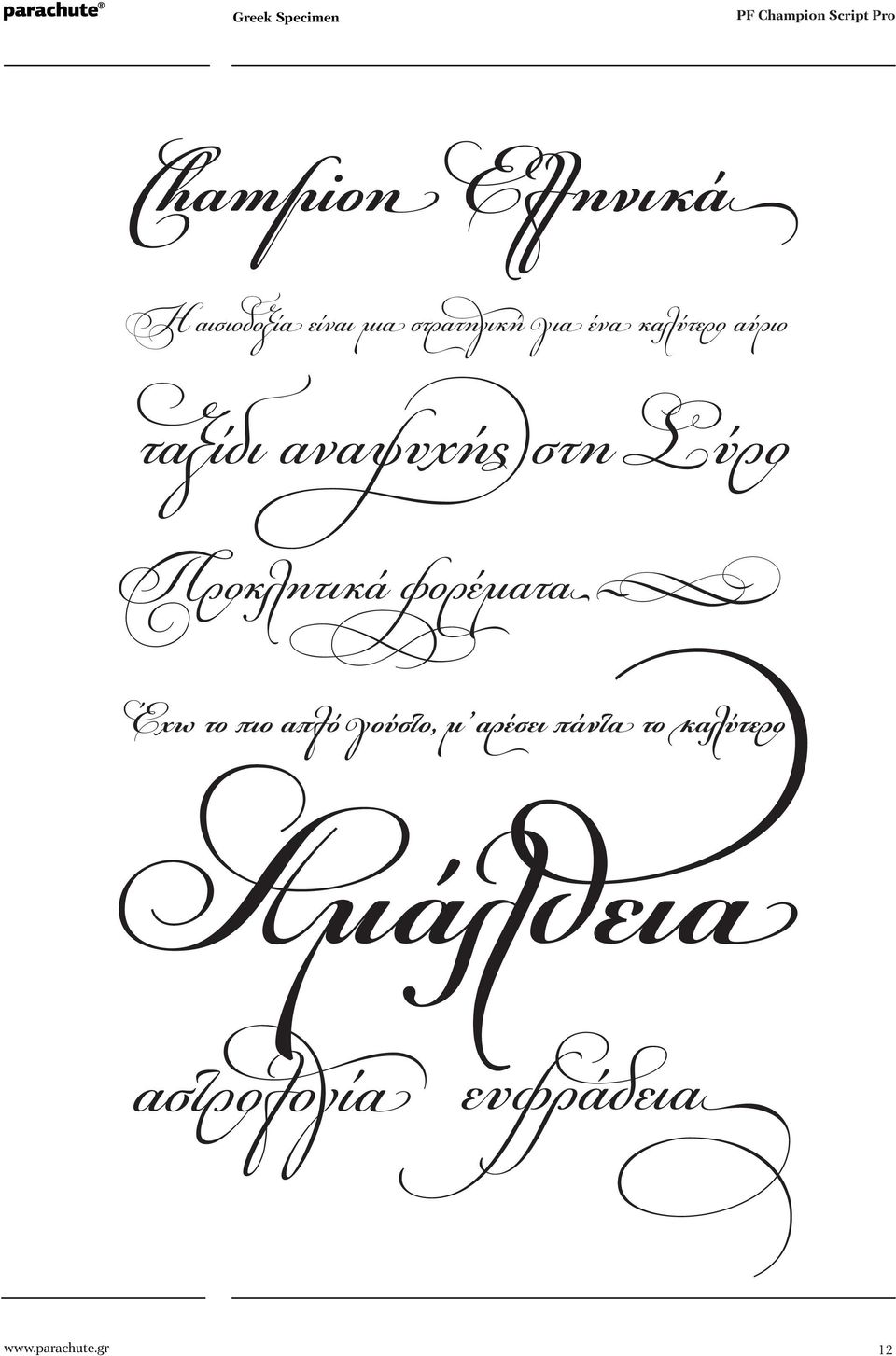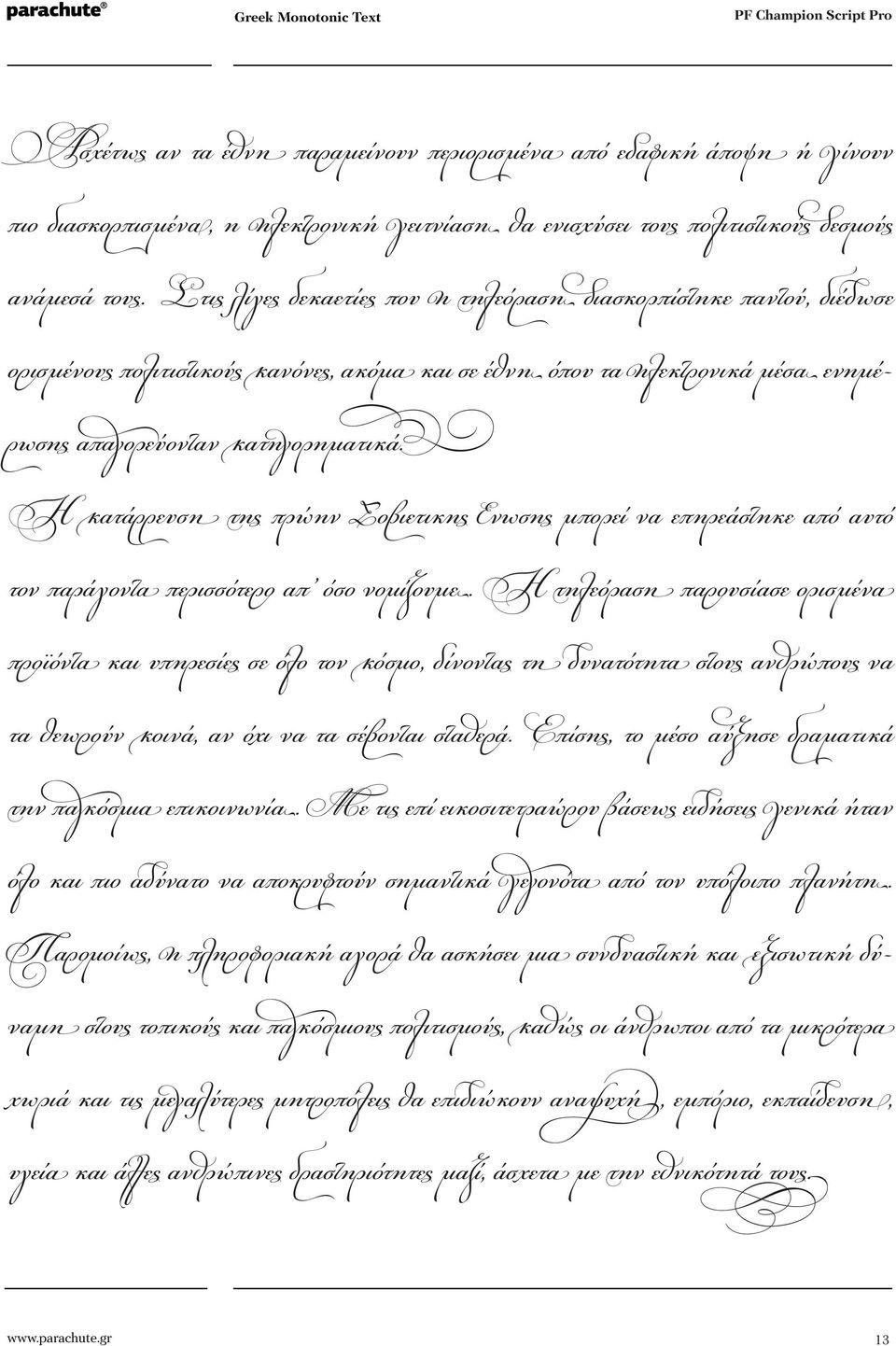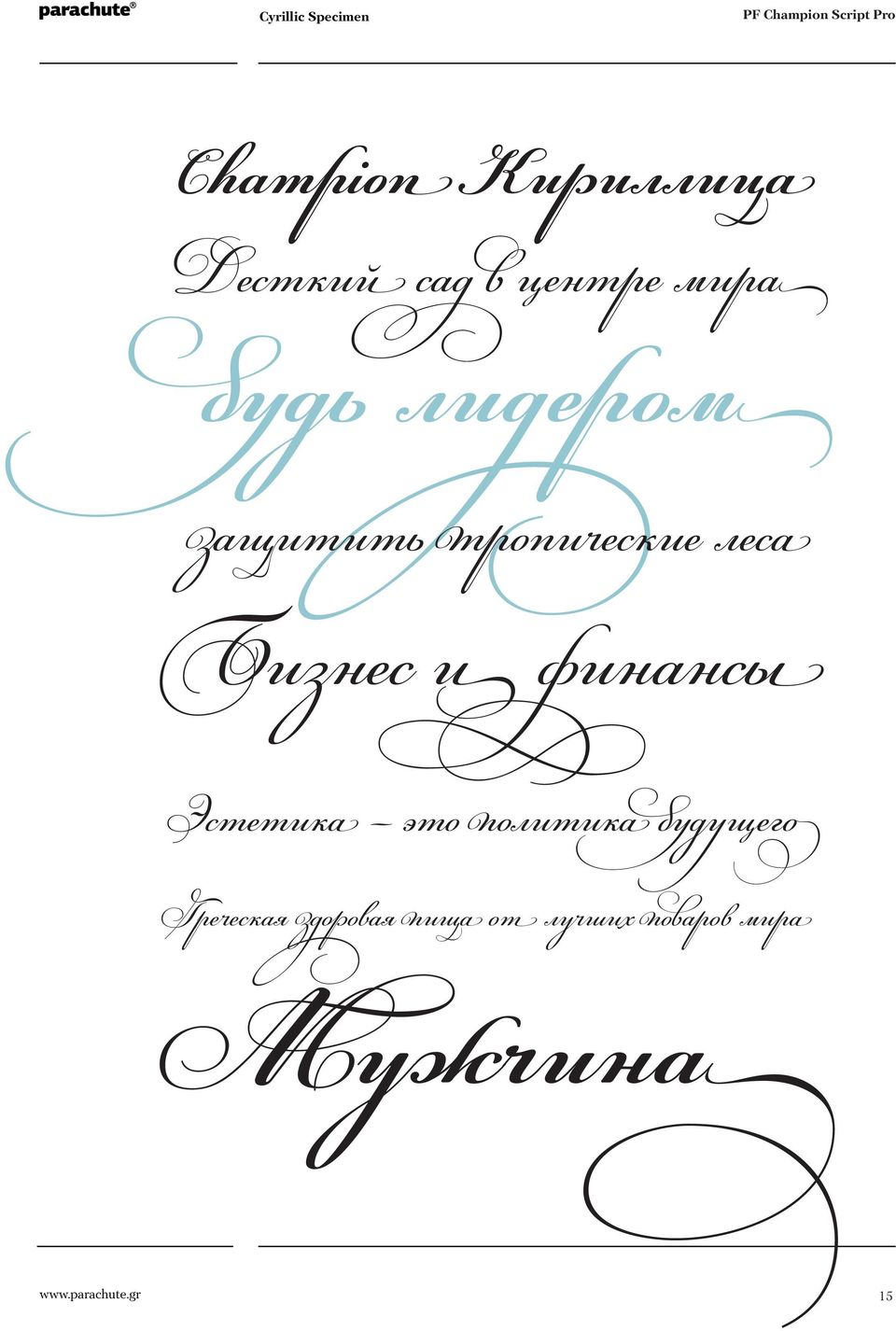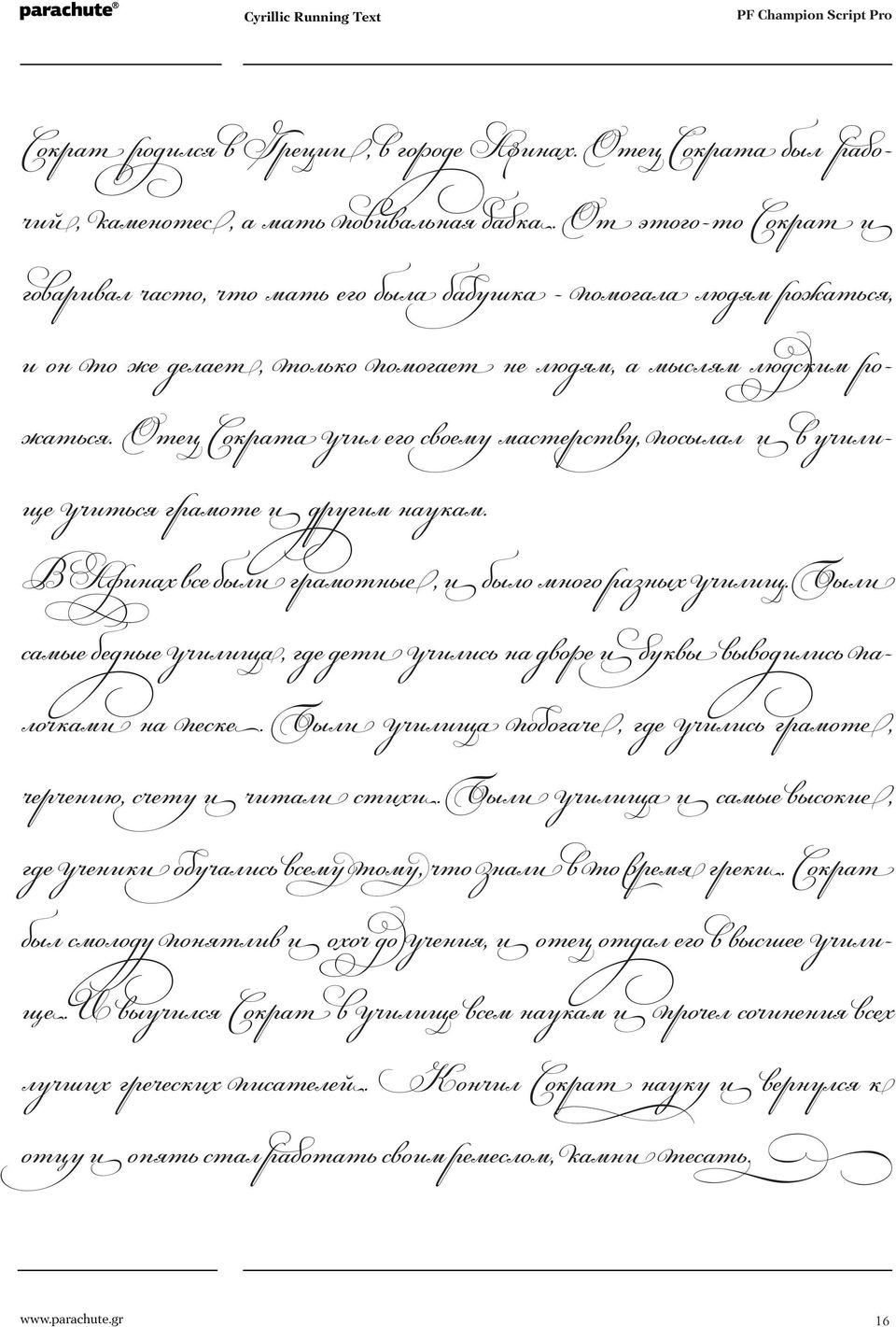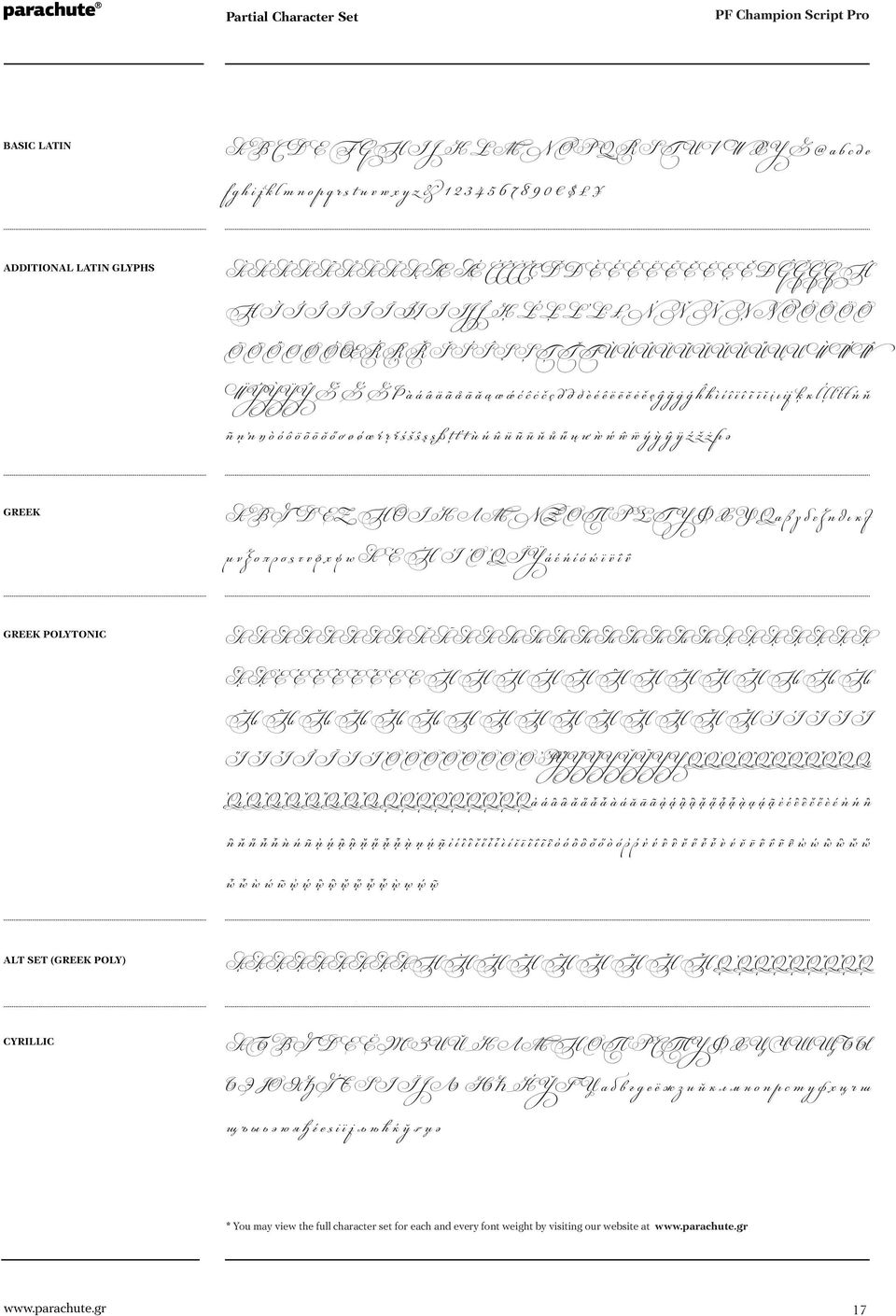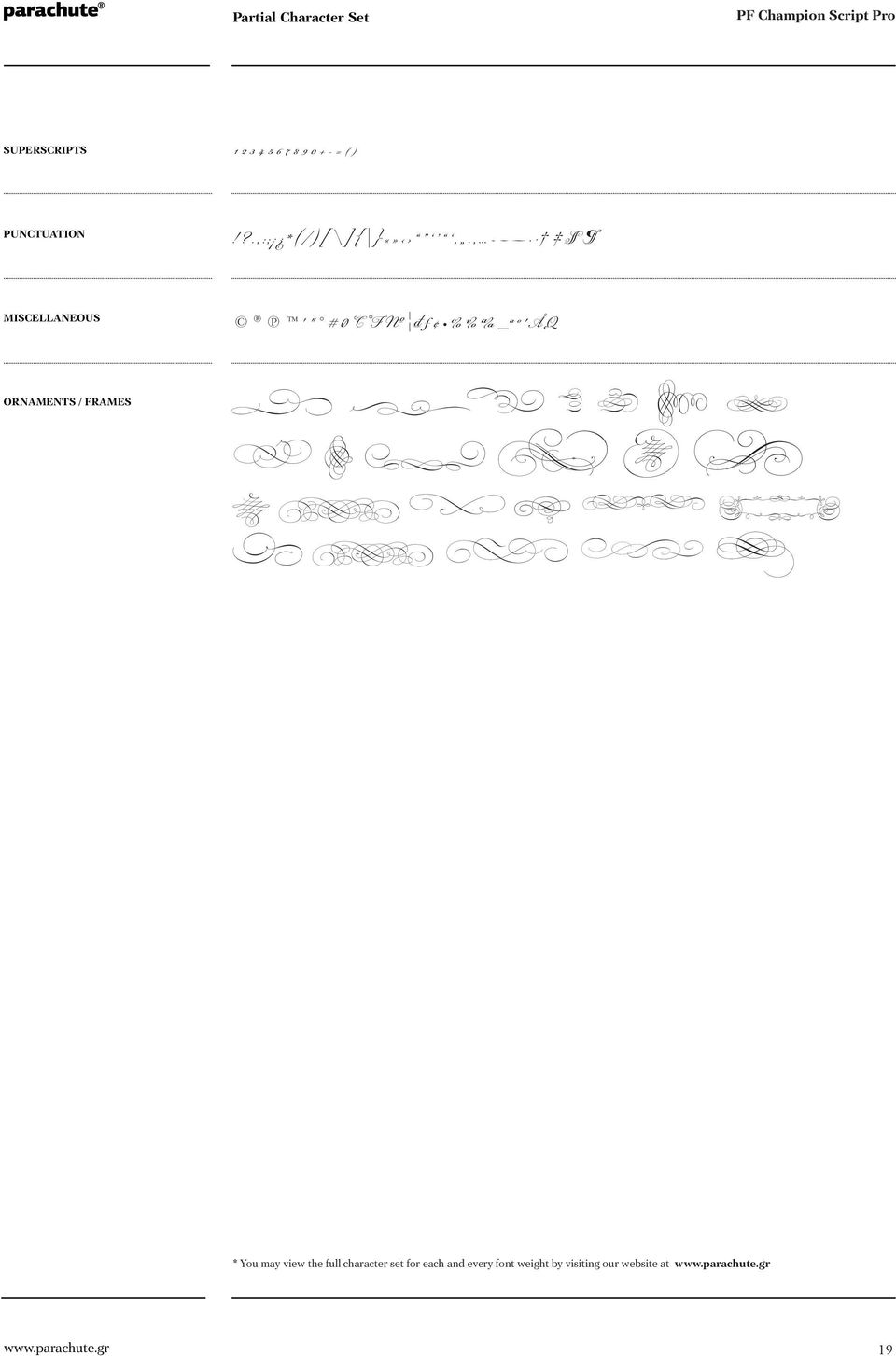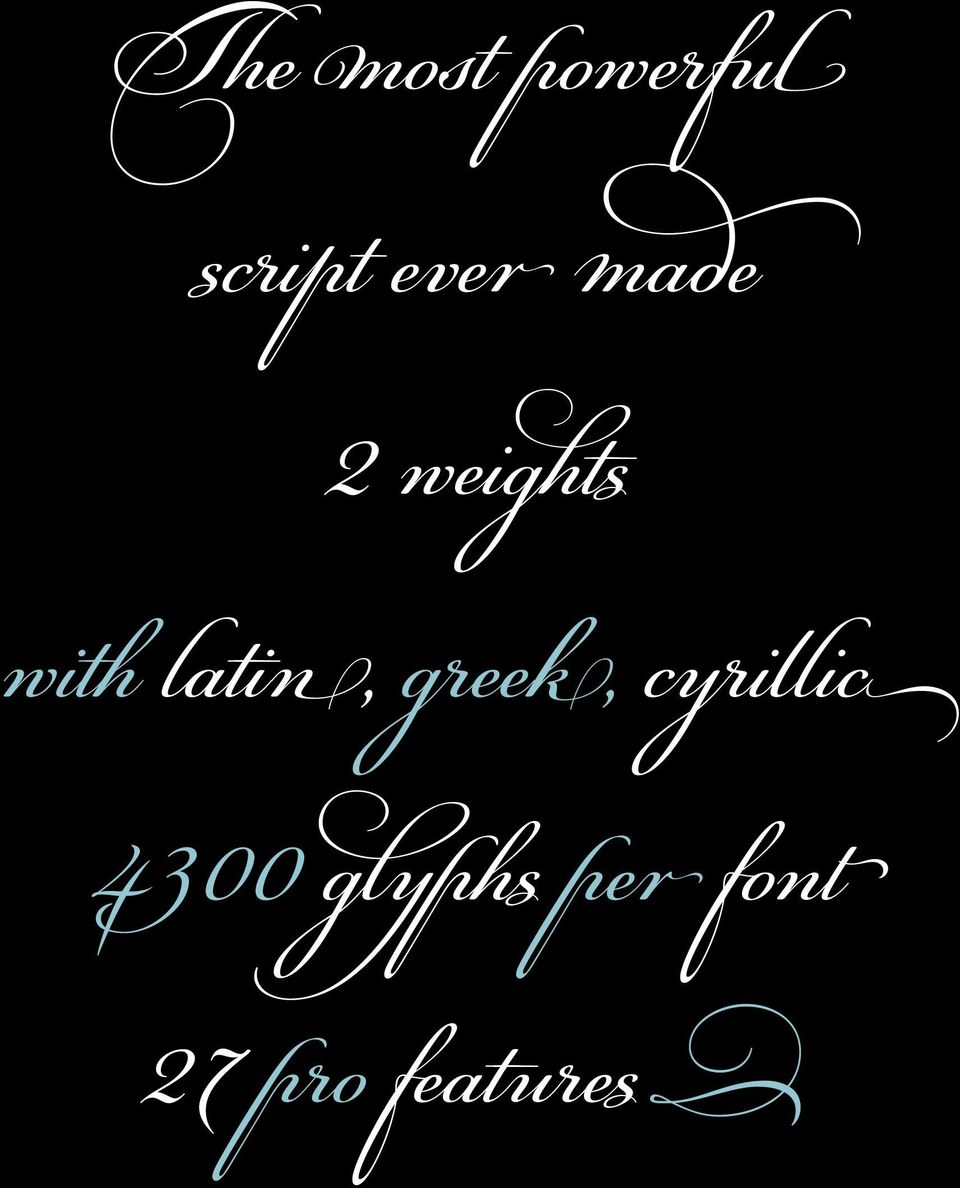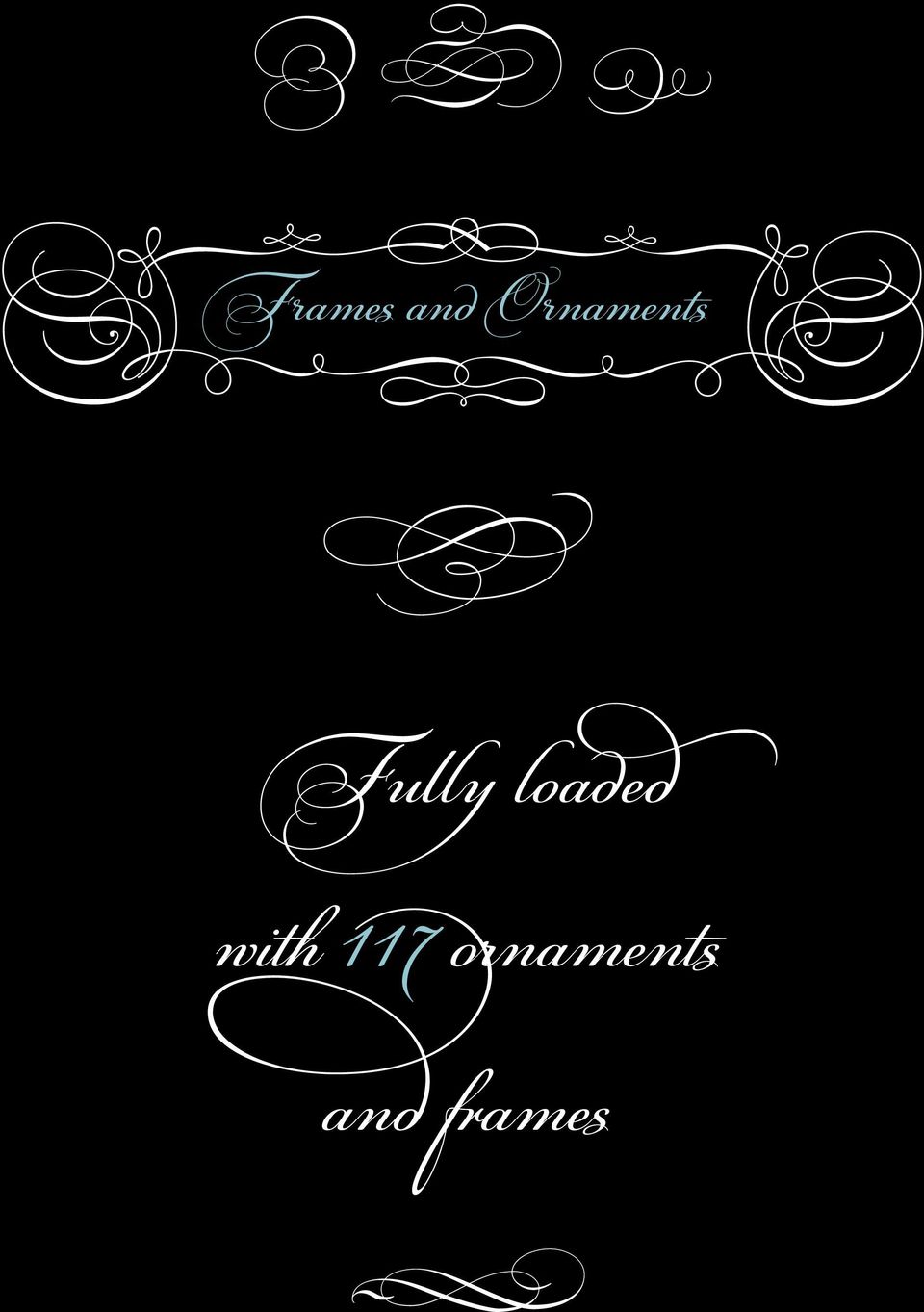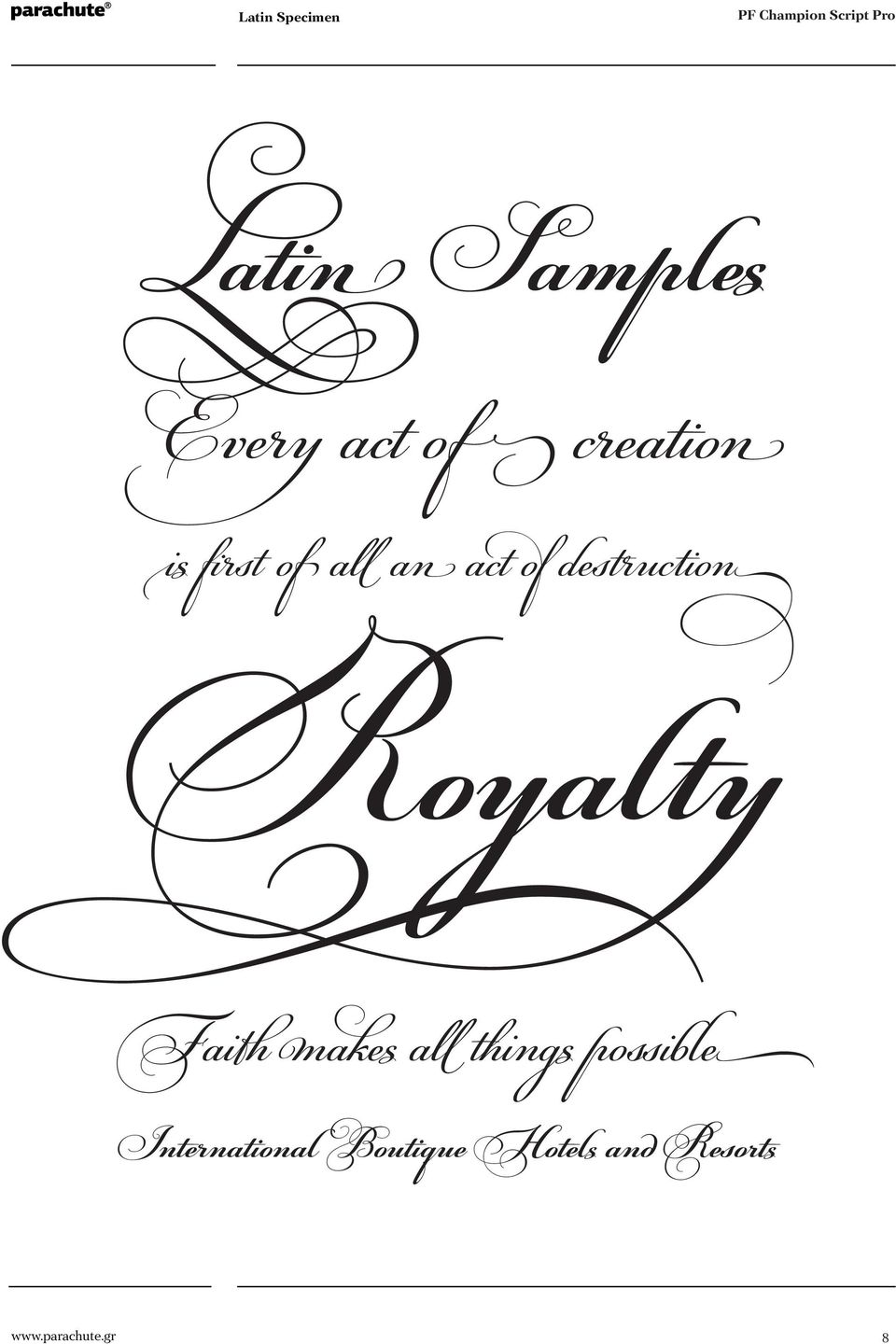
Εclectic Fonts For Living Brands. PF Champion Script Pro
3 I have e simplest of tastes. I m always satisfied wi the Best Oscar Wilde - 3
4 ABOUT is the most advanced and powerful script ever made. It is based mainly on the manuscripts of the 18th century english calligrapher Joseph Champion. Developed over a period of two and a half years, each one of the 2 weights is loaded with 4300 glyphs. This is the only calligraphic typeface currently available that offers simultaneous support within the same font for Latin, Greek and Cyrillic scripts. Furthermore, a wide selection of alternate forms and ligatures is included for all languages, in order to accommodate diverse design aesthetics. These alternates are either applied automatically through an advanced programming scheme, or manually through several opentype features. An attempt was made to design a contemporary script typeface with classic roots, by following certain guidelines, i.e. lowercase characters were designed so they are less slanted than traditional calligraphic fonts, have a higher x-height and are less condensed than the original. Several characters were stripped-off their connecting lines in order to enhance legibility. Four sets of alternate swashed capitals as well as a vast number of ornaments and frames was included. Small caps and their alternate forms were designed to replace the capitals which disrupt the flow of text within a sentence with their extravagant swashes. All characters were carefully designed with the proper weight in order to sustain harsh printing conditions (on special papers), a situation which affects mainly the light connecting parts of calligraphic typefaces. Finally, it was programmed to preserve handwriting qualities, by designing an extensive array of ligatures and alternate glyphs in all languages, never before released or incorporated within the same font. Champion Script is a registered trademark of Parachute FORMAT Desktop (otf) / Web (woff, eot, svg) LANGUAGES/SCRIPTS Latin Cyrillic Greek Greek Polytonic Eastern European Turkish Baltic GLYPHS 4300/font incl. 117 ornaments and frames PRO FEATURES Standard f-ligatures Discretionary Ligatures Contextual Alternates / Contextual Ligatures Stylistic Alternates Small Caps Initial Forms / Terminal Forms Historical Forms / Localized Forms Case-Sensitive Forms Fractions / Ordinals Oldstyle Figures (tabular/proportional) Lining Figures (tabular/proportional) Scientific Inferiors / Superscript Numerators / Denominators Ornaments / Frames Stylistic Set 01, 02, 03, 04, 05, 06, 07, 08, 09 Slashed Zero WEIGHTS/STYLES Regular Bold PUBLISHED 2007 DESIGNED BY Panos Vassiliou 4
5 The most powerful script ever made 2 weights with latin, greek, cyrillic 4300 glyphs per font 27 pro features -
6 y у у y у у y y y A A A A A a a a a a a δ δ δ δ δ ж ж ж ж ж d d d d Numerous alternates to customise your documents automatically or manually
7 λ 2? YFrames and Ornaments * Fully loaded with 117 ornaments and frames 7